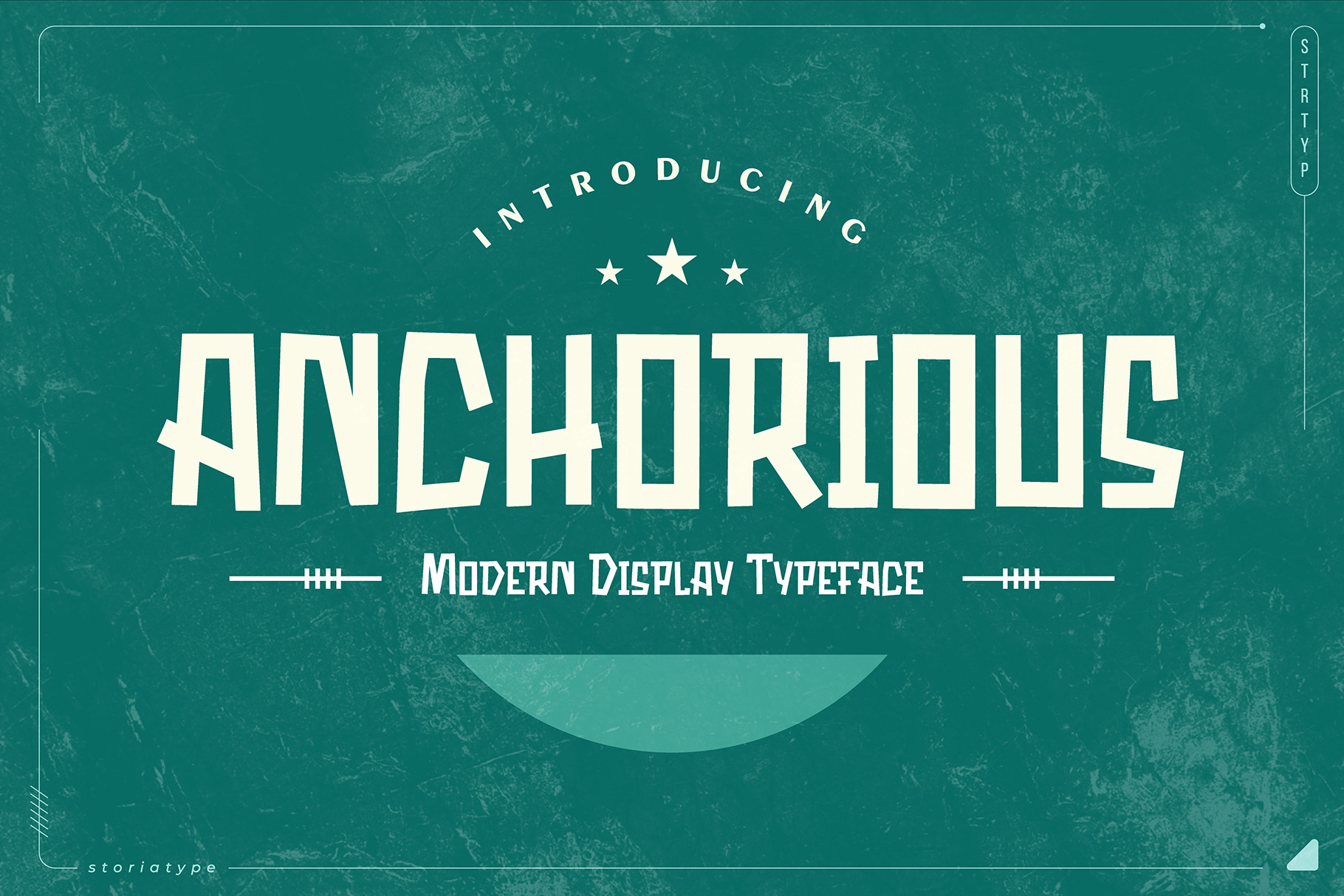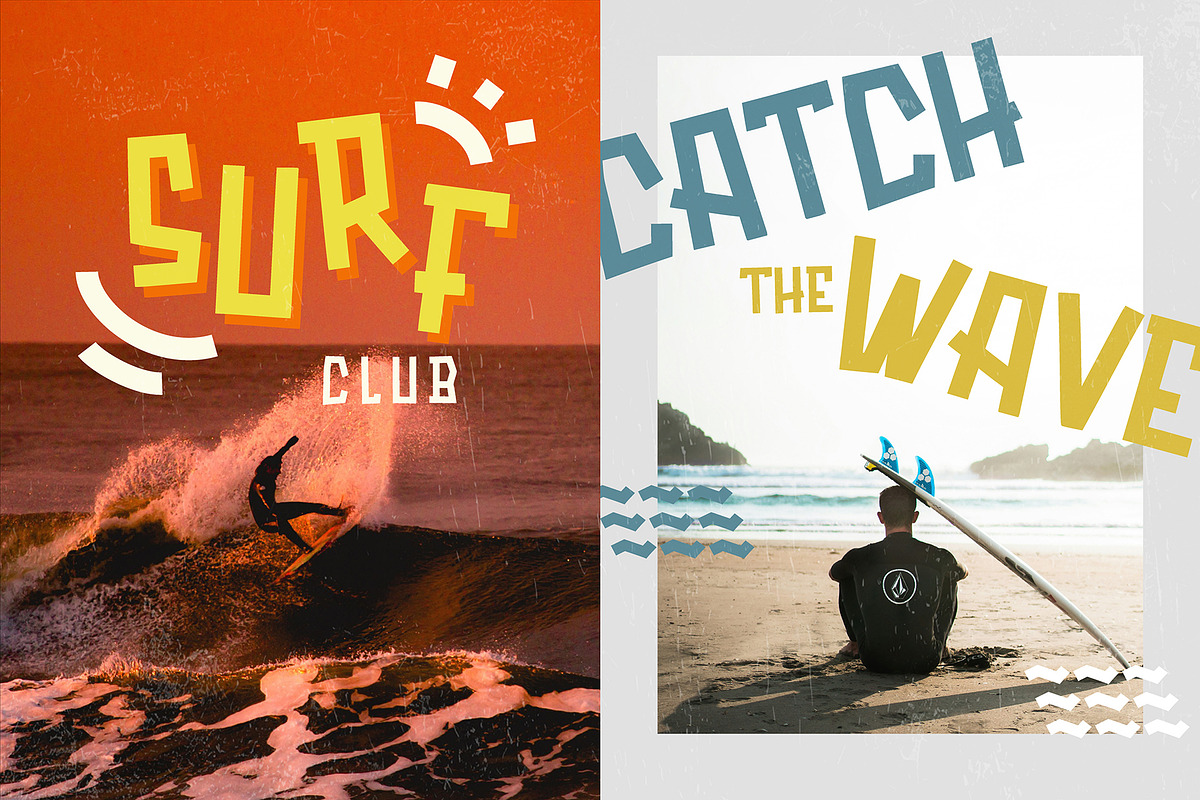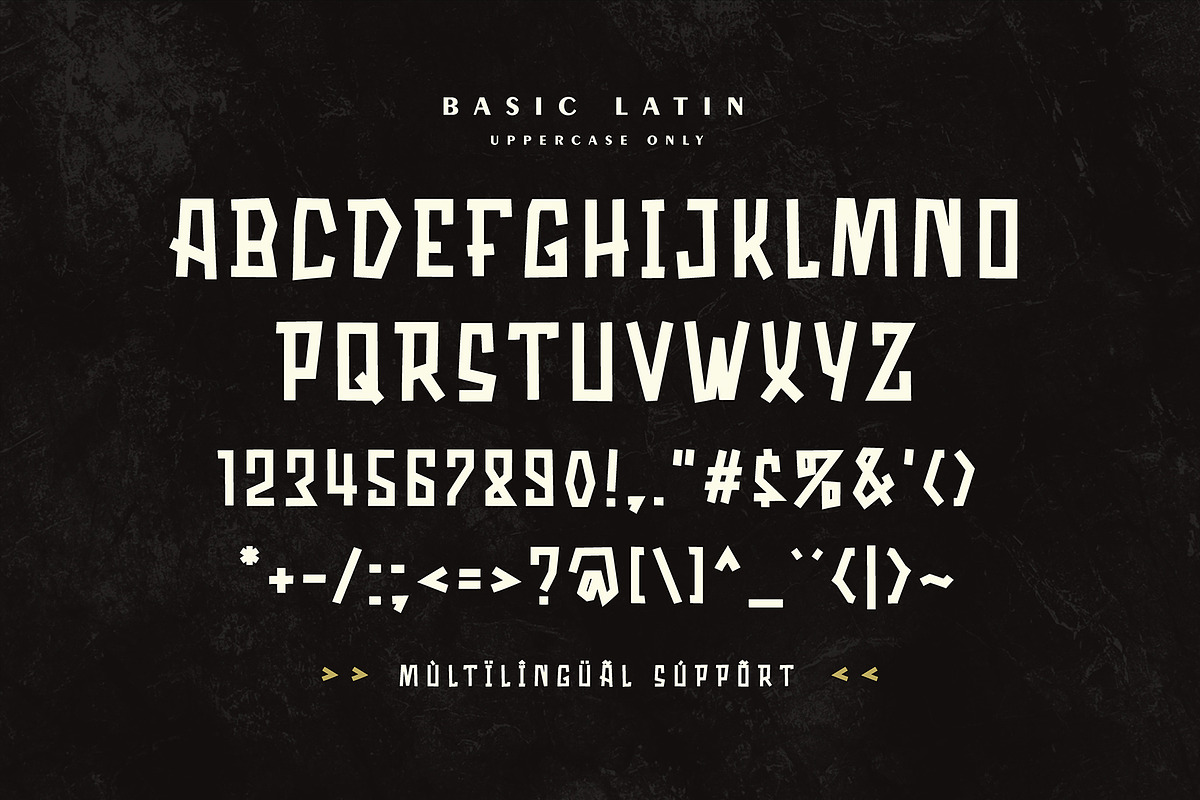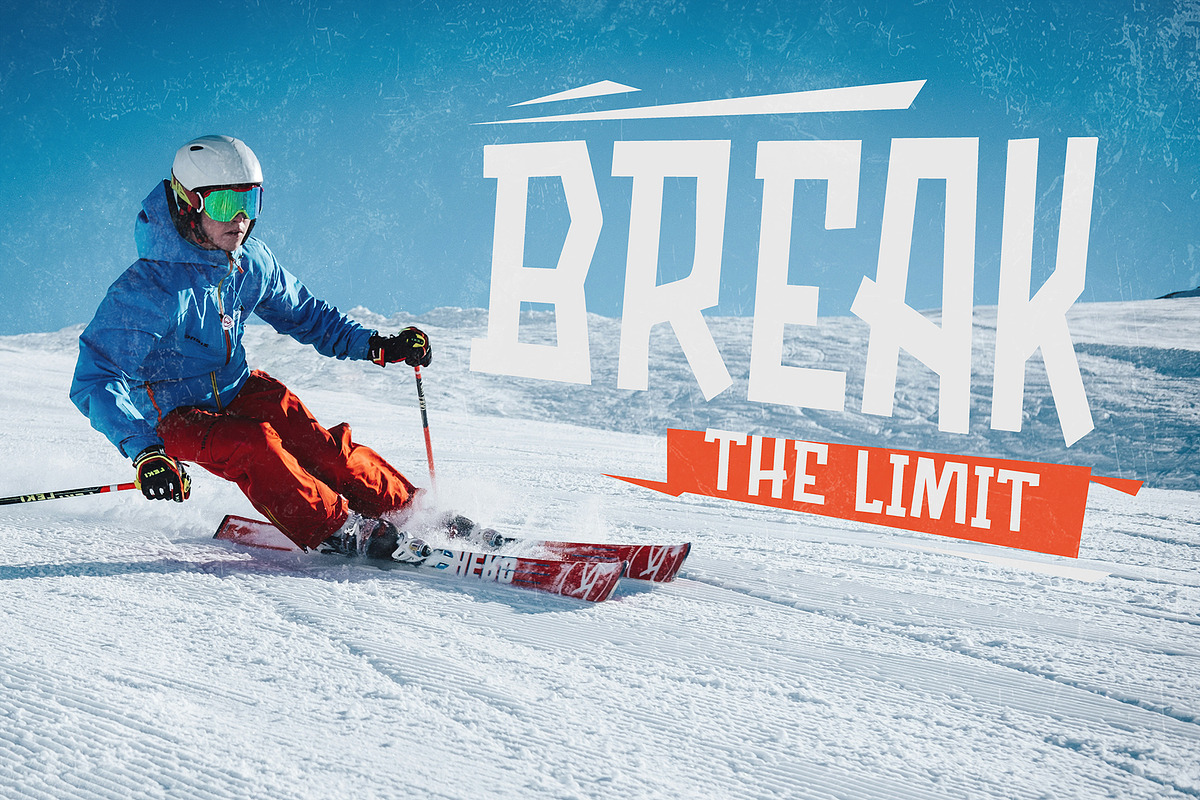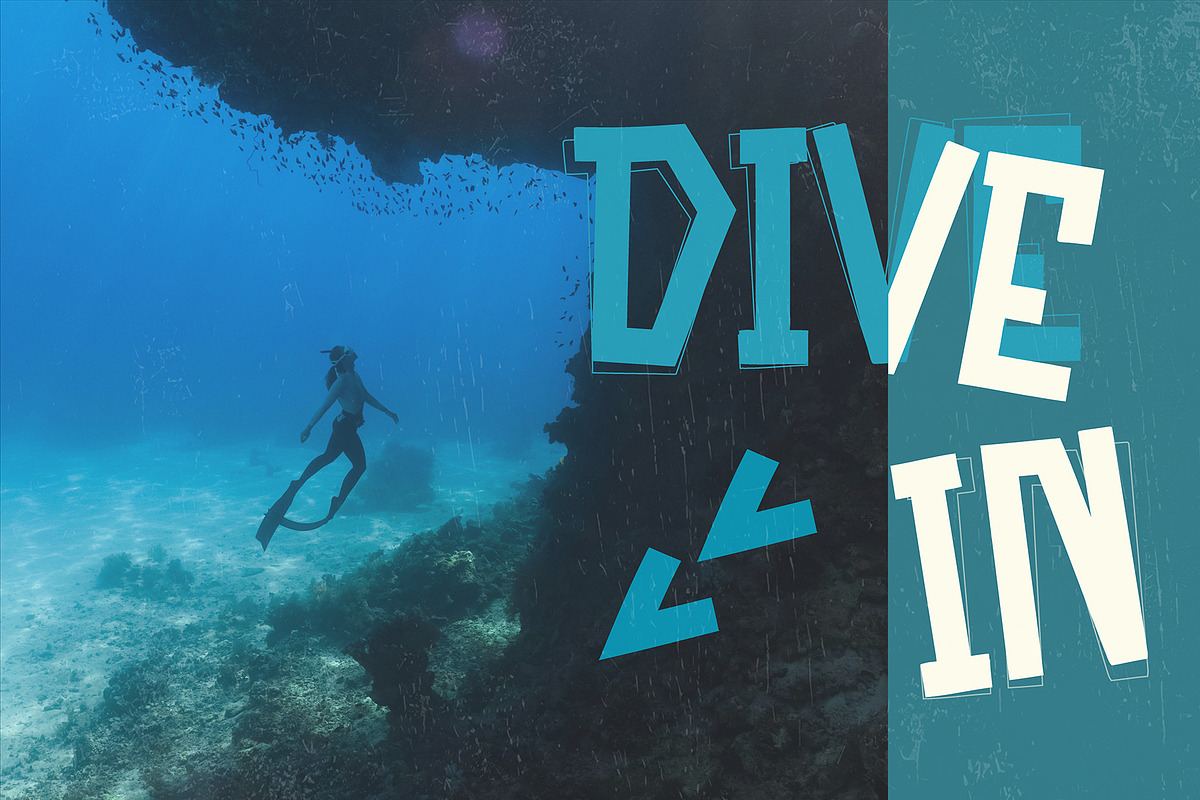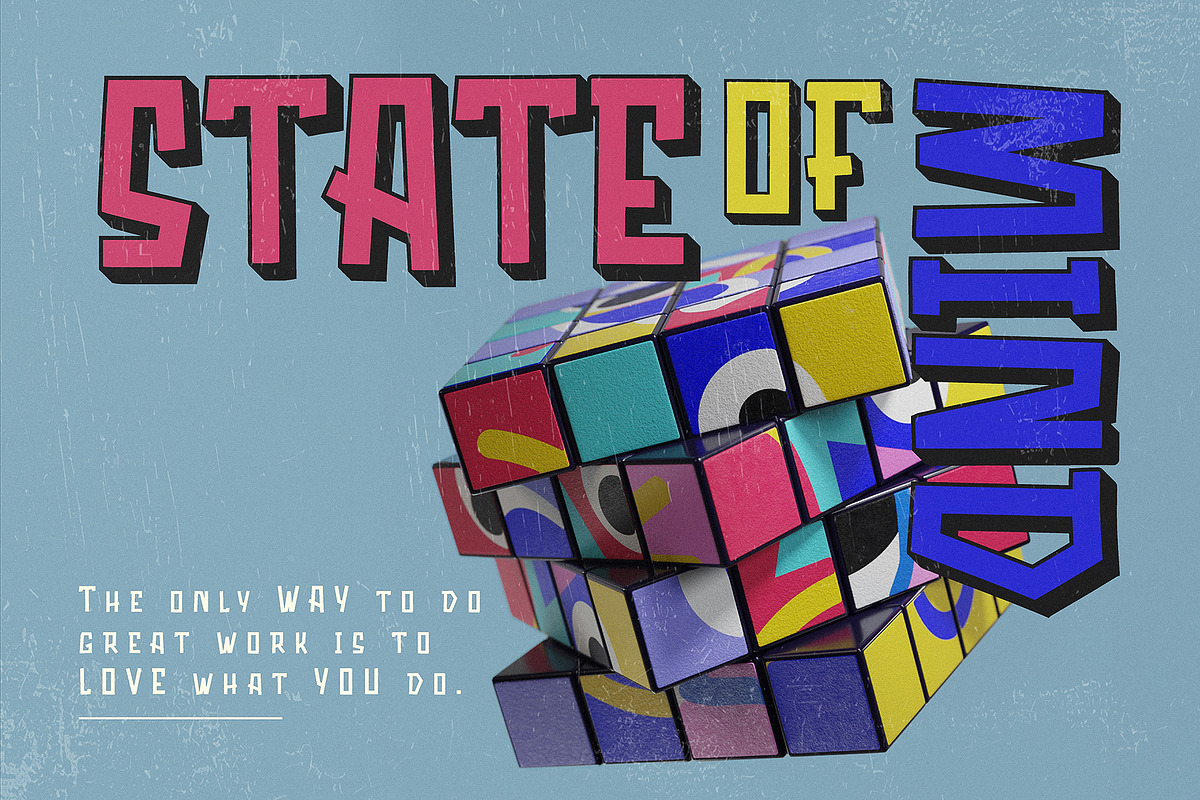
Anchorious - Modern Display Font
🌟 “Anchorious” Typeface: Where Bold Meets Modern Elegance 🌟
Sculpted Precision: The “Anchorious” font is a masterpiece of precision. Each letter is meticulously crafted, like a sculptor chiseling marble. Its bold strokes demand attention, while its geometric structure adds an air of sophistication.
Versatility Unleashed: Whether you’re branding a startup, designing packaging, or creating digital art, “Anchorious” adapts effortlessly. It’s like having a versatile wardrobe—dress it up or down, and it always looks impeccable.
Digital Warmth: In a pixelated world, “Anchorious” brings warmth. Its clean lines and consistent spacing ensure readability, even on screens. It’s the font equivalent of a cozy fireplace on a chilly evening.
Limitless Creativity: This isn’t just a font; it’s a canvas. Use it for headlines, logos, posters, or social media graphics. Let your imagination sail—there are no boundaries.